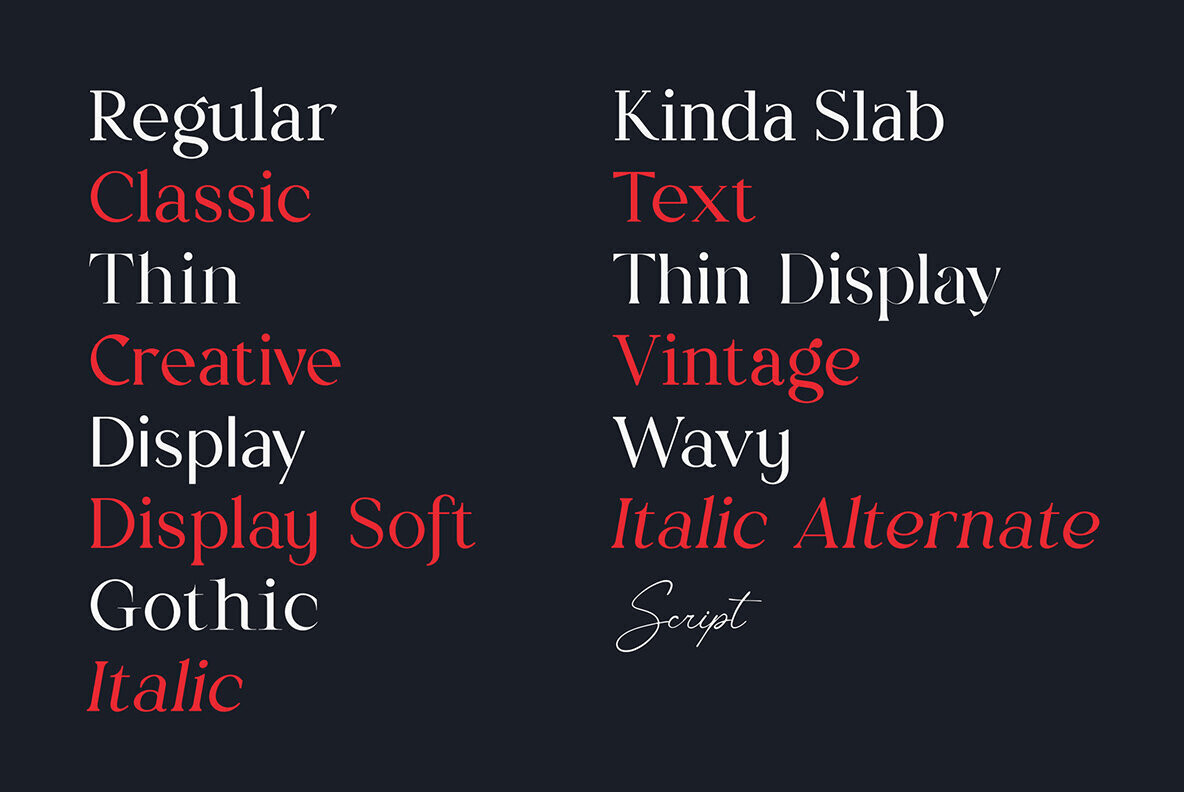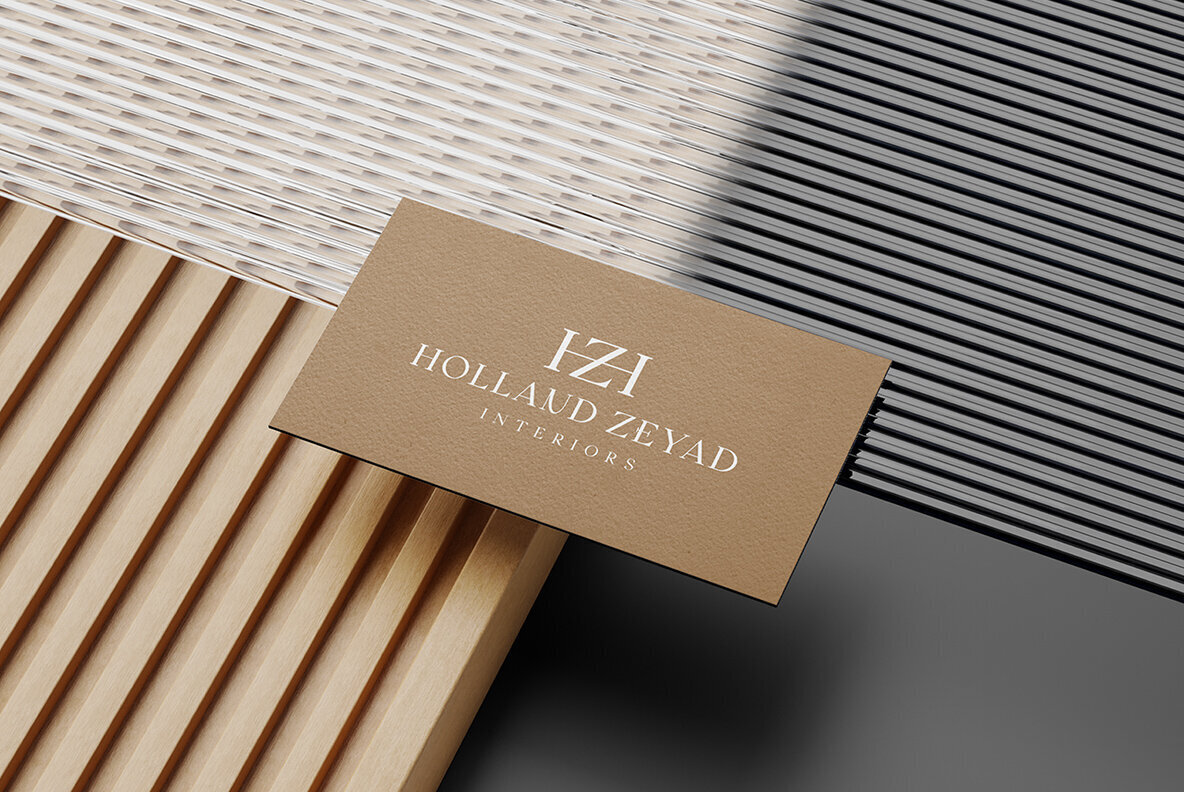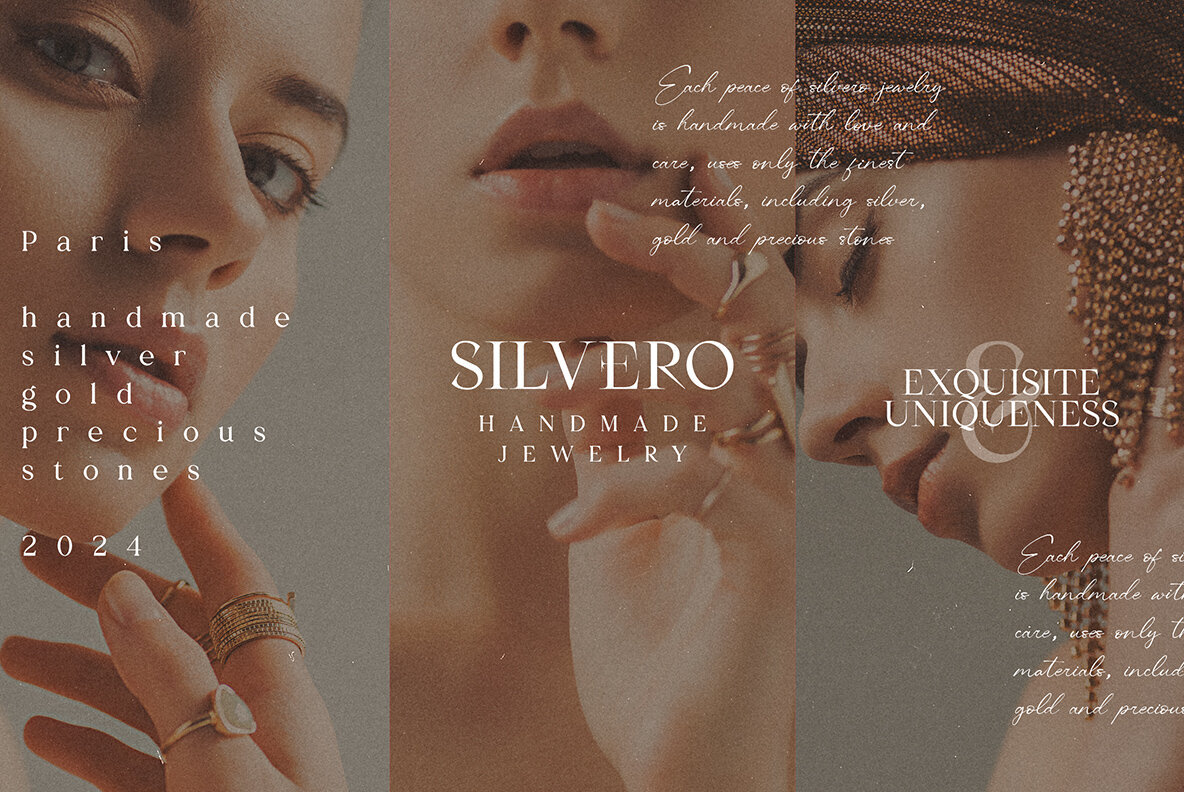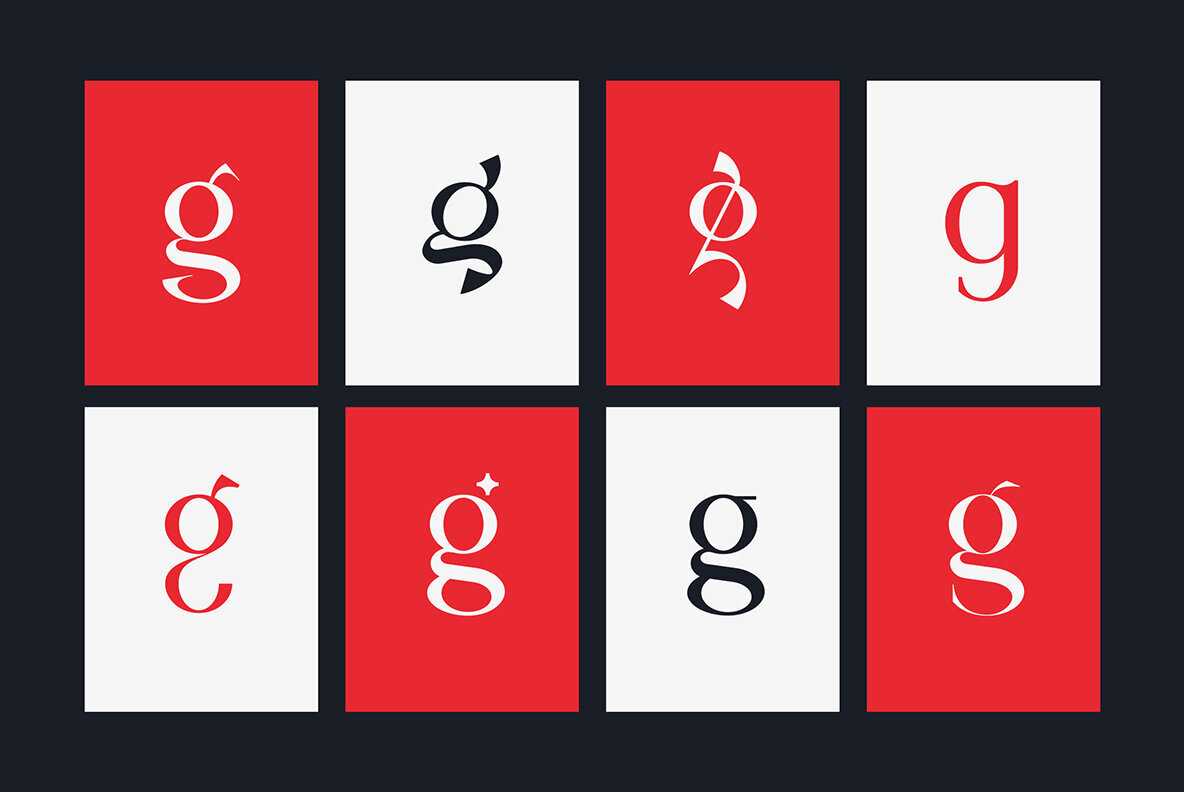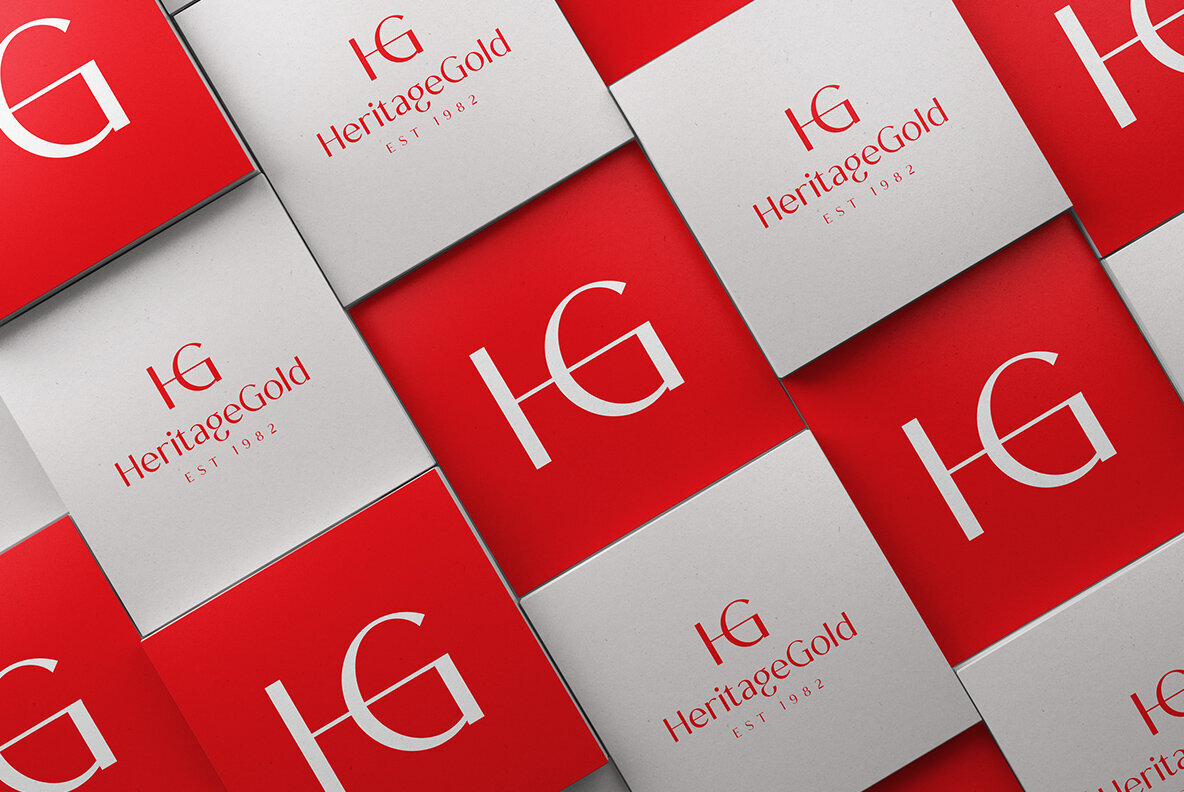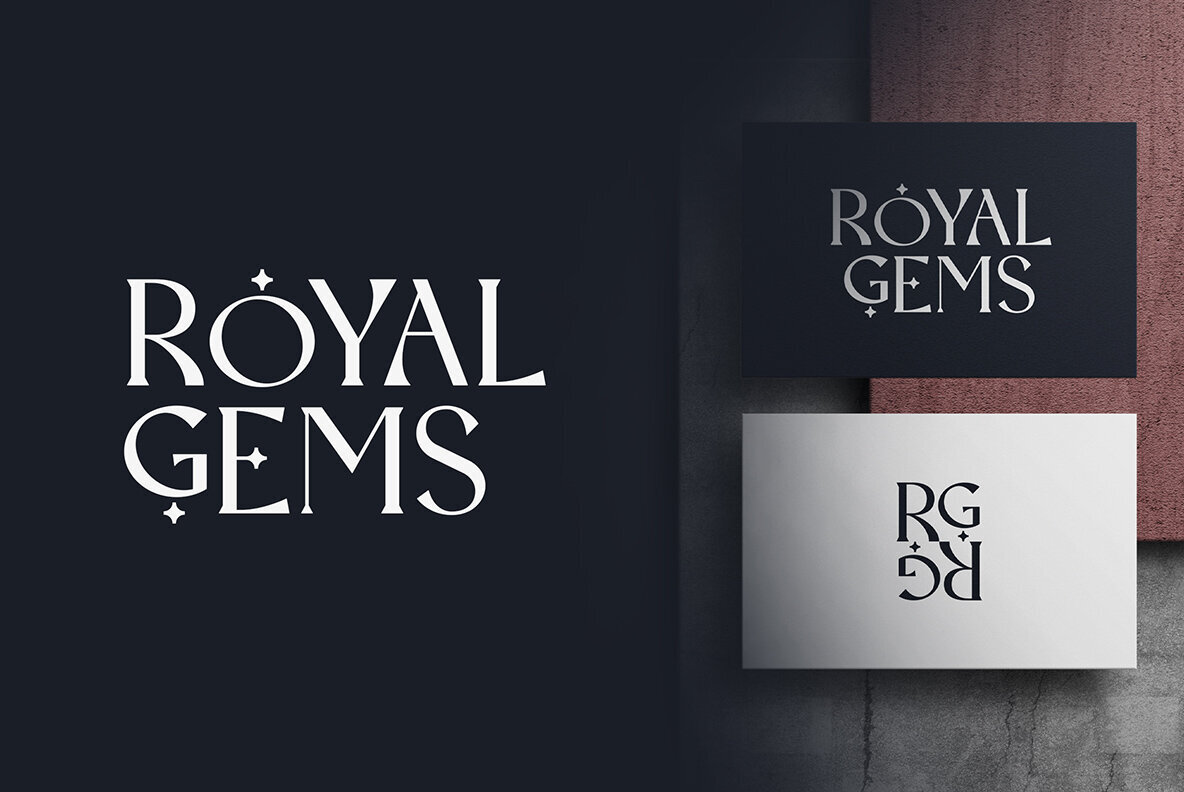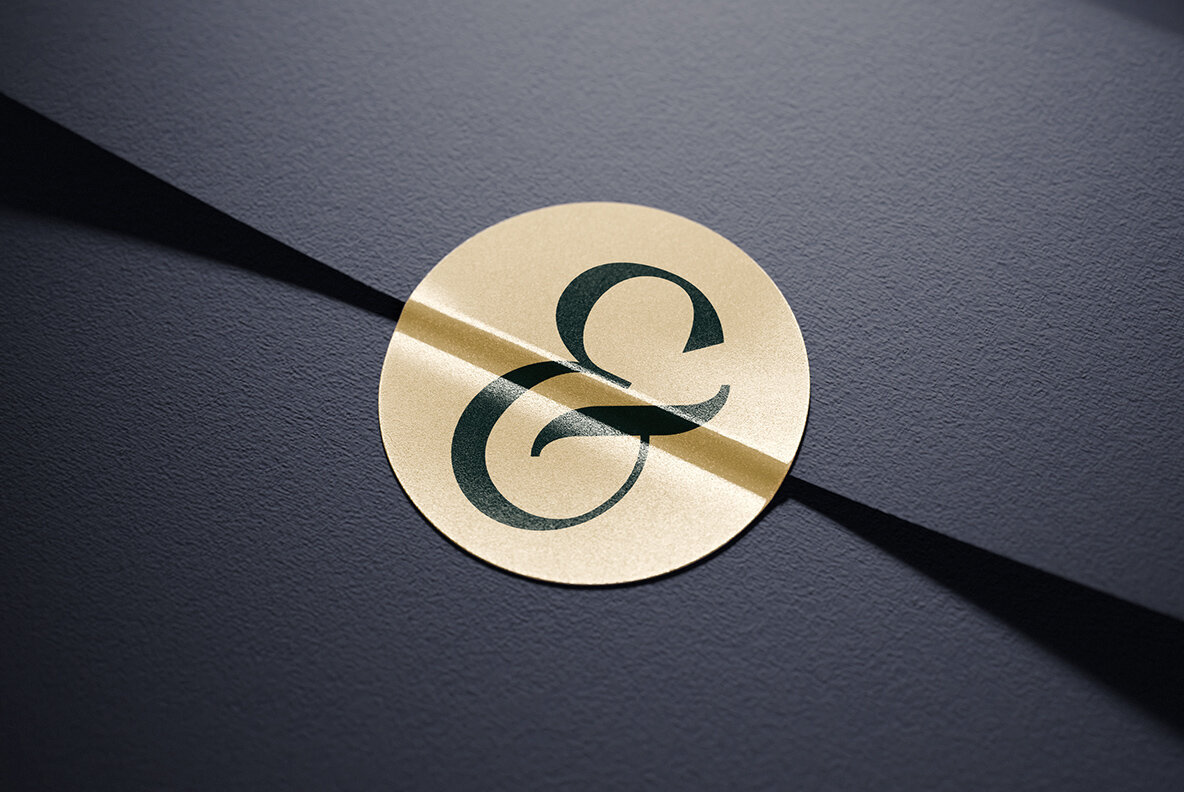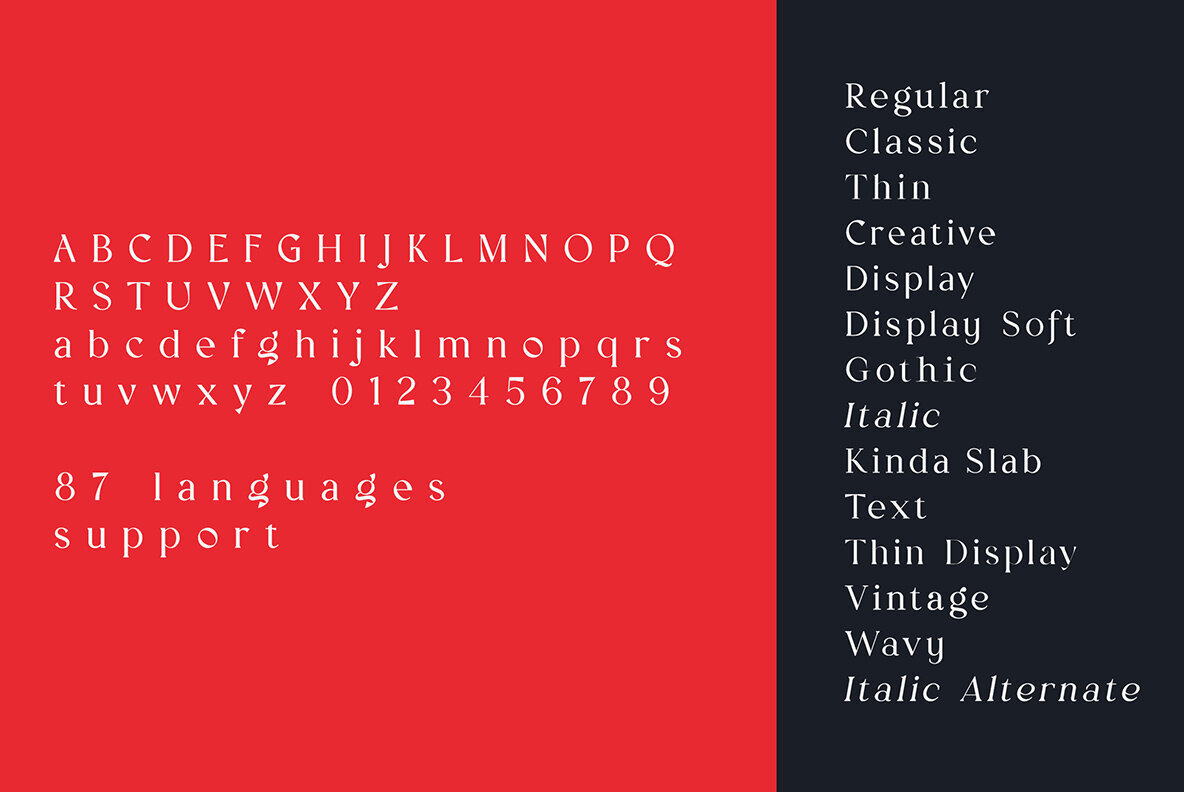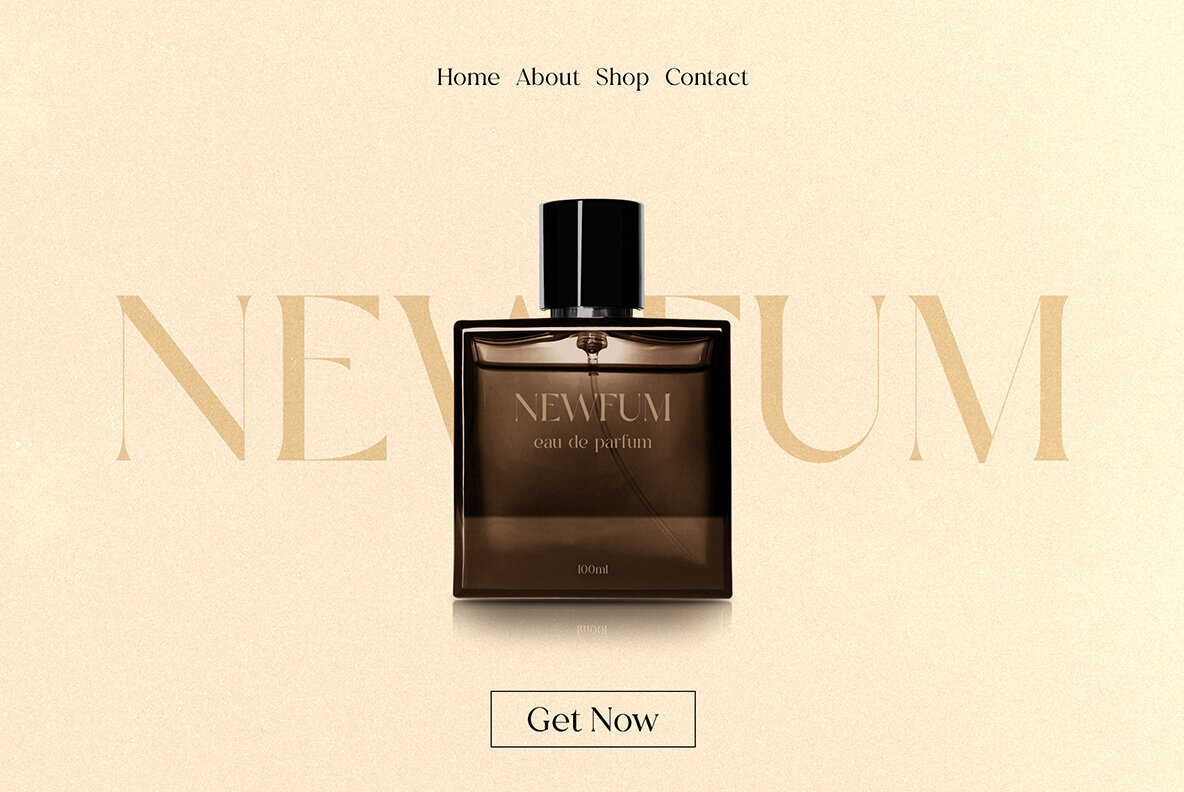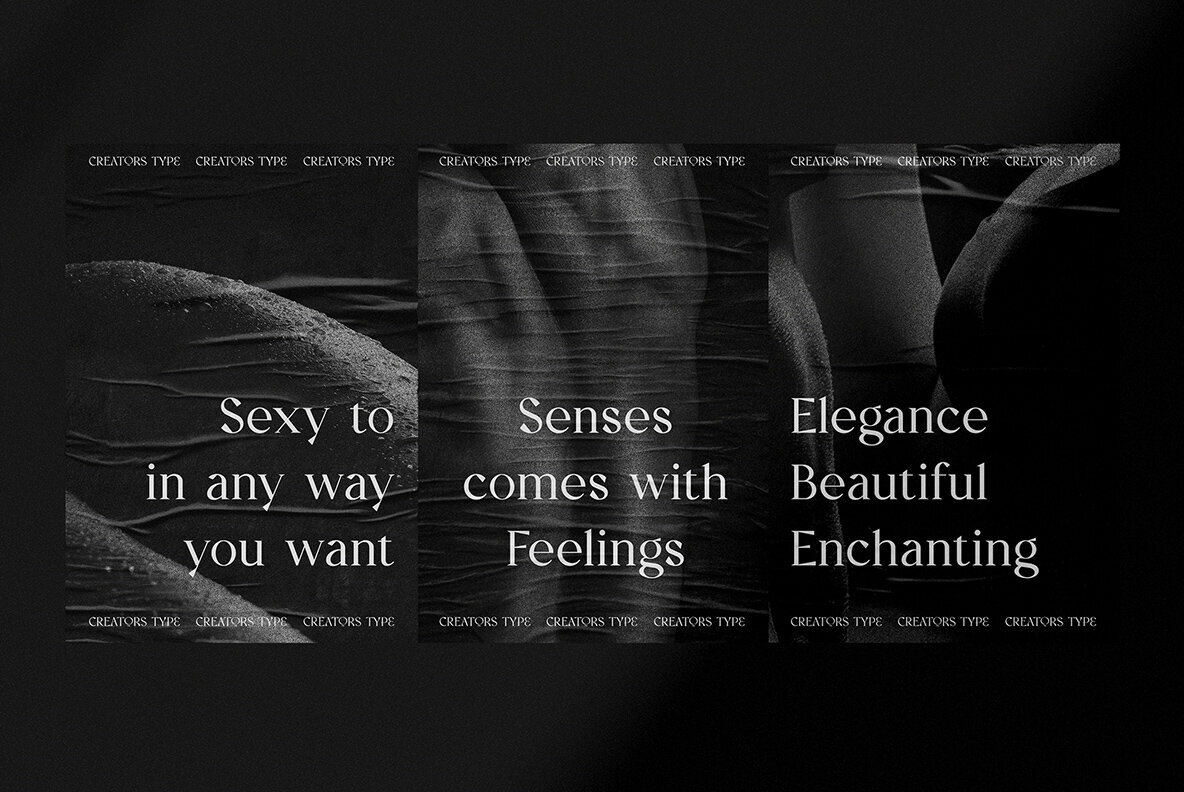
Creators Type Font
Discover a highly versatile serif typeface that offers 14 distinct styles and a complementary script, specifically crafted for creative professionals. Its diverse options include Classic, Thin, Gothic, Vintage, and more, making it an excellent choice for a wide range of projects such as branding, editorial design, and web design. This type family boasts support for 87 languages, granting you the freedom to work on international projects with ease. The collection of alternate glyphs adds flexibility, allowing designers to customize their work to perfection, whether it's for luxury logos, intricate packaging, or digital designs. Note that mock-ups and backgrounds shown in showcases are not included.
The typeface is equipped with carefully designed details that enhance its aesthetic appeal across different applications. With extensive language support from Afrikaans to Zulu, you can easily tailor your designs for various linguistic needs. For those utilizing Adobe InDesign or Illustrator, alternate glyphs can be accessed via the Glyphs panel, providing further customization to your text. This typeface offers a perfect blend of elegance and practicality, catering to the nuanced needs of contemporary graphic and digital designers.